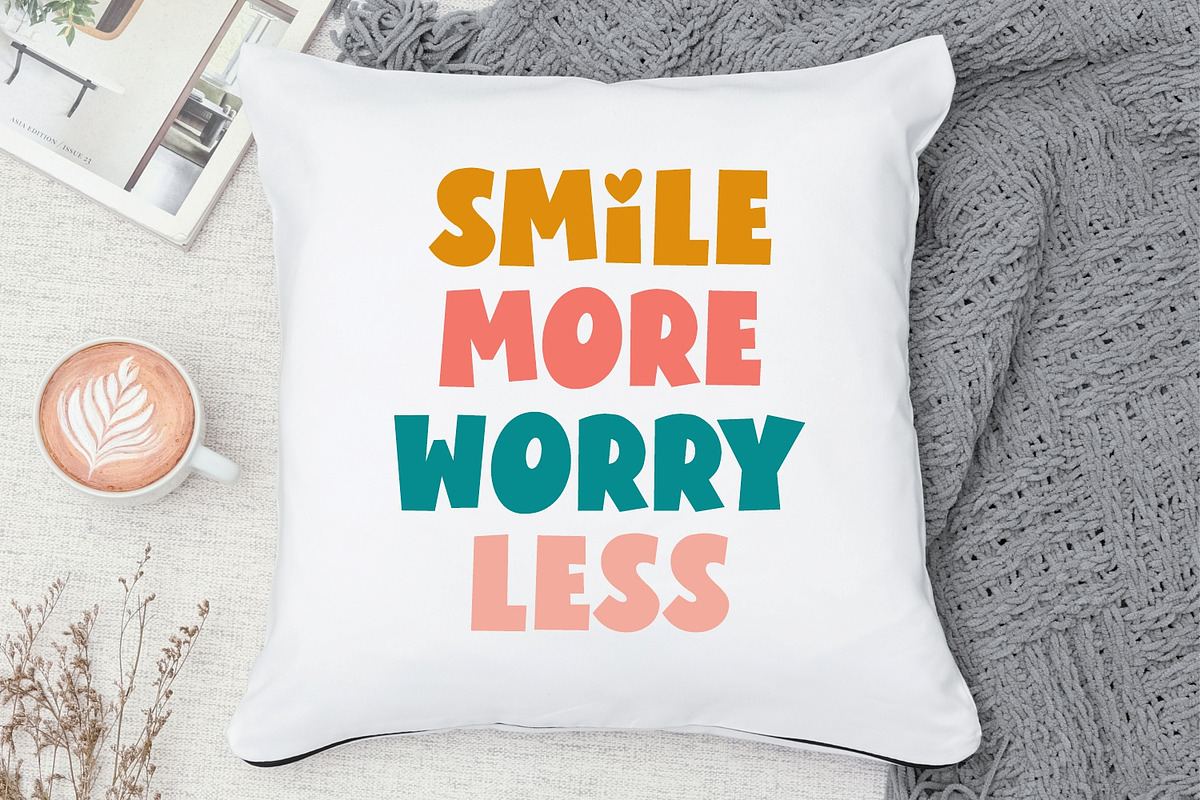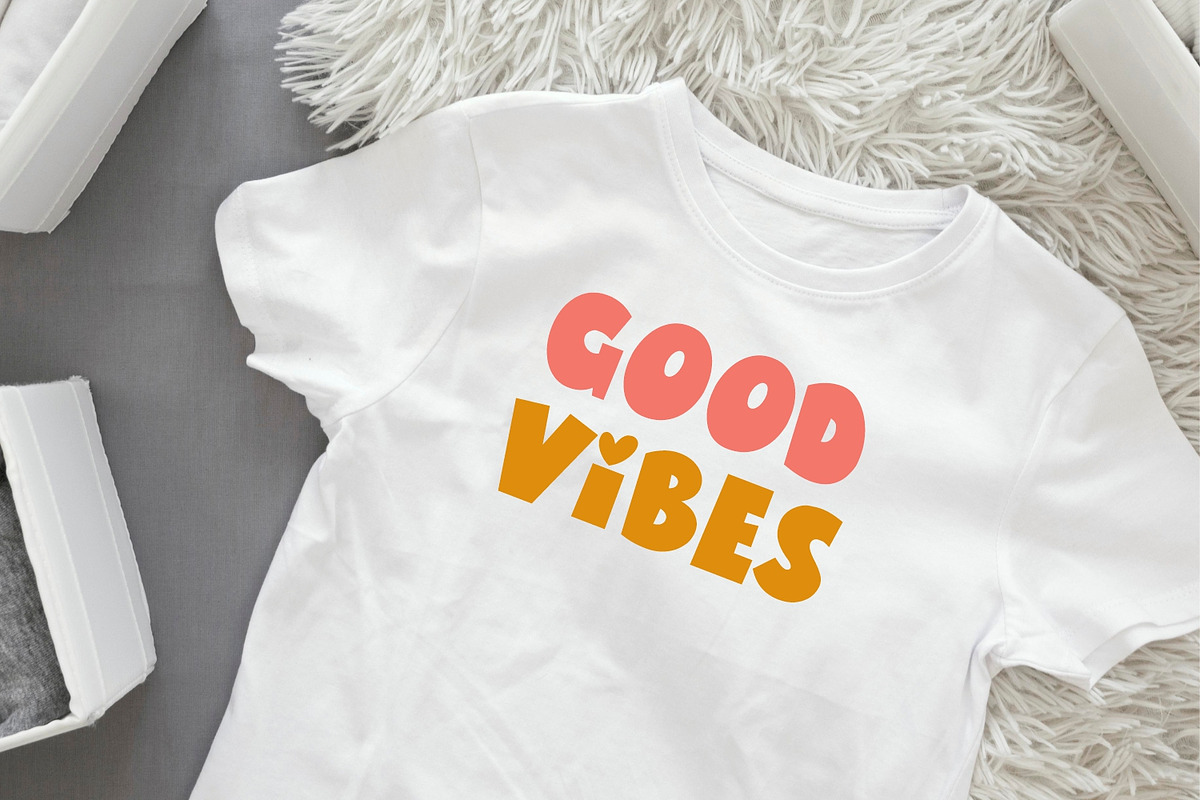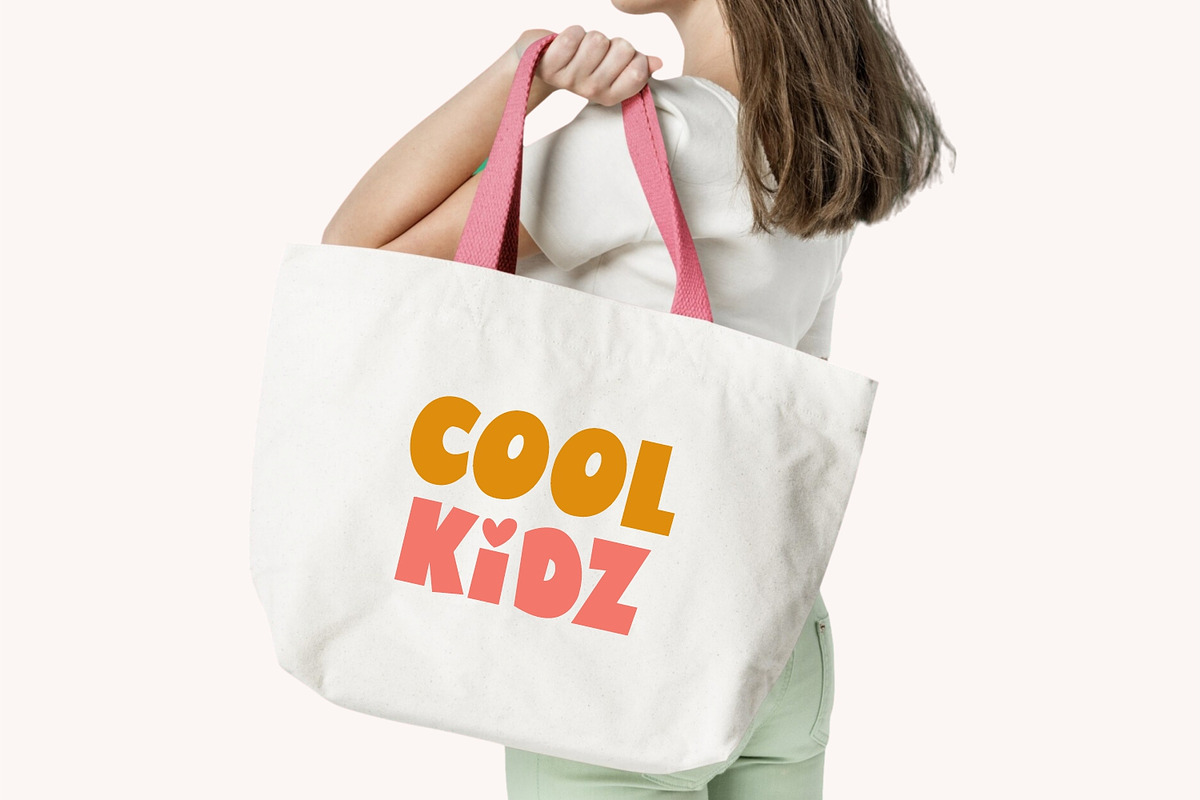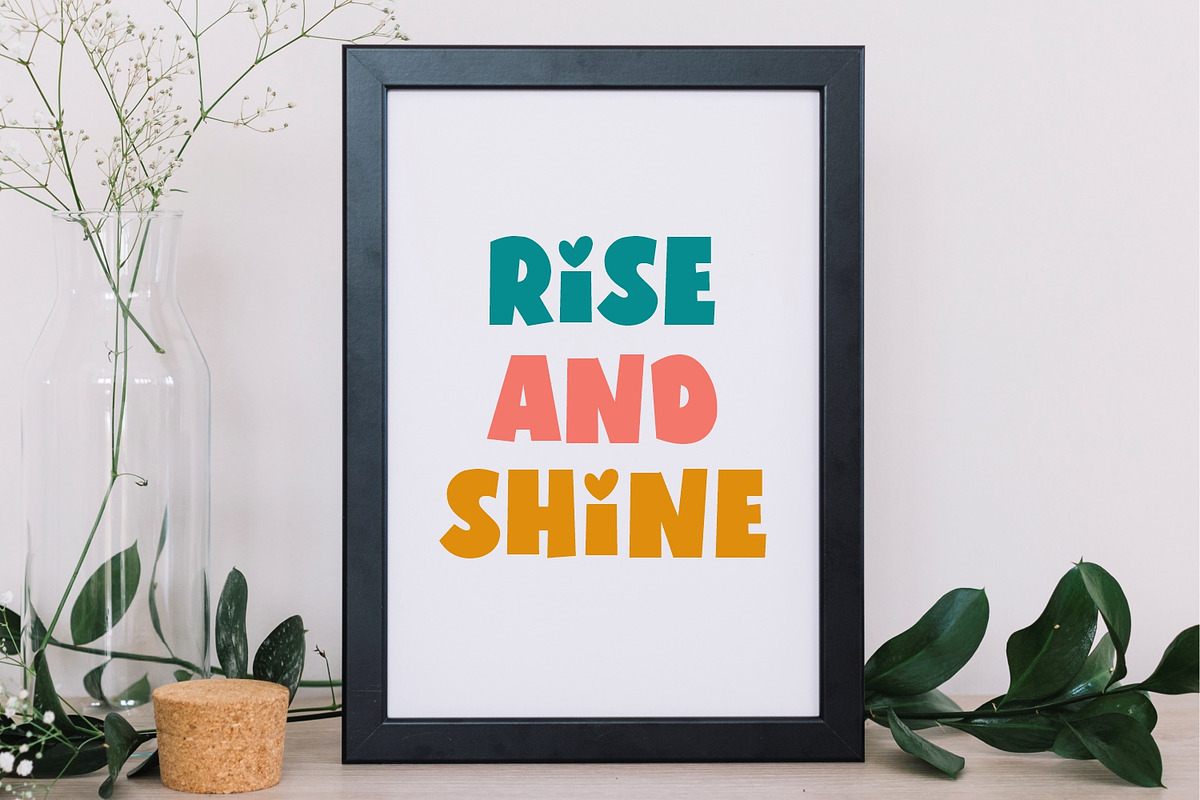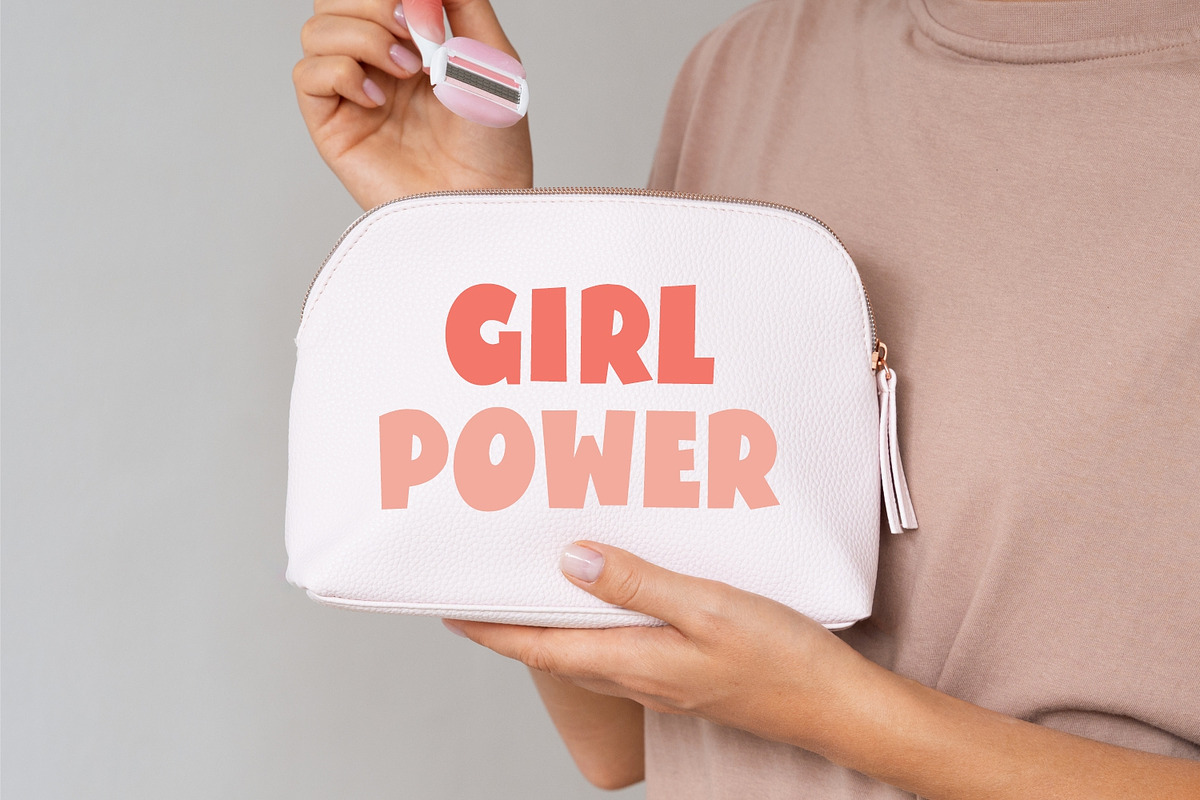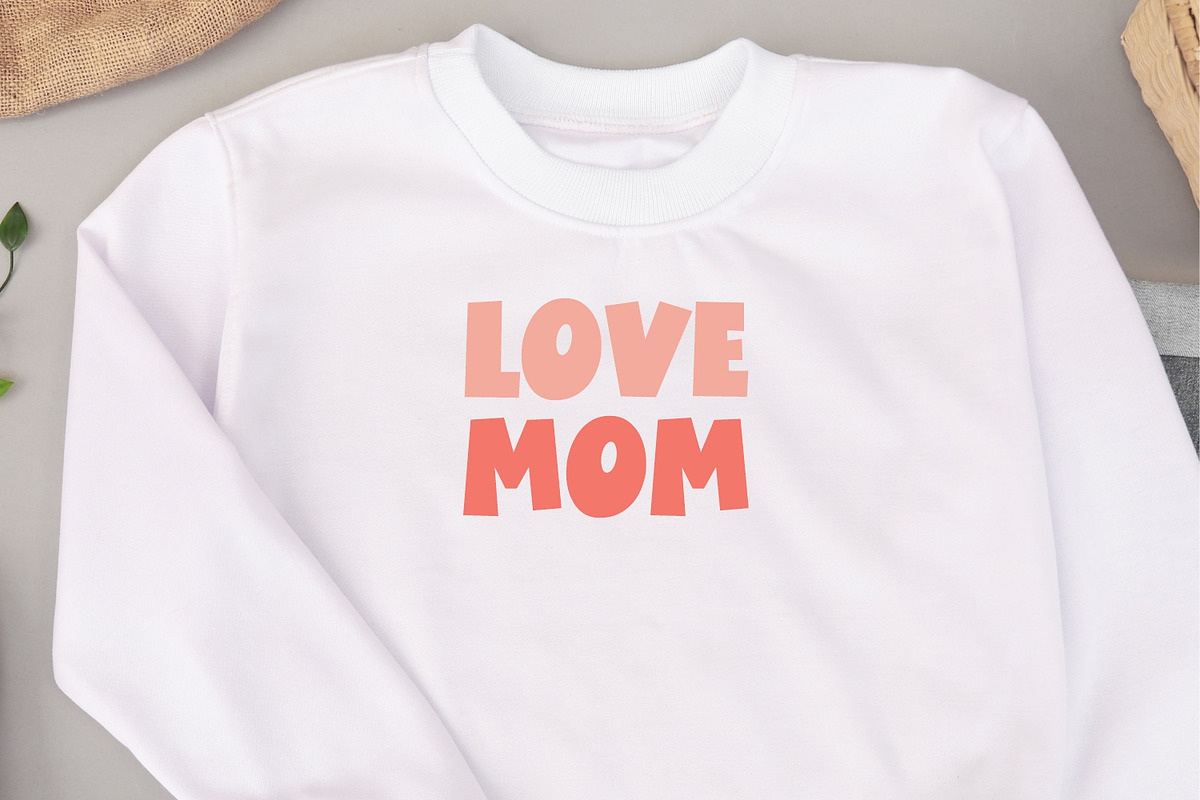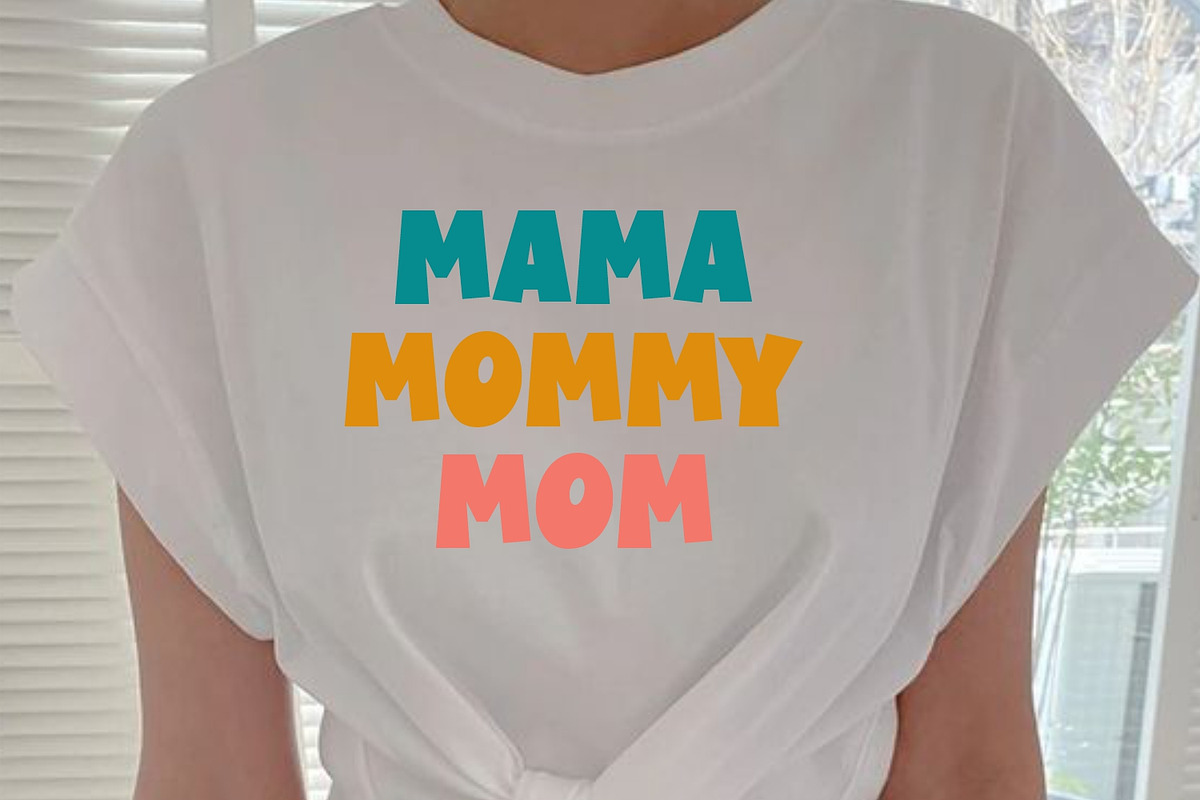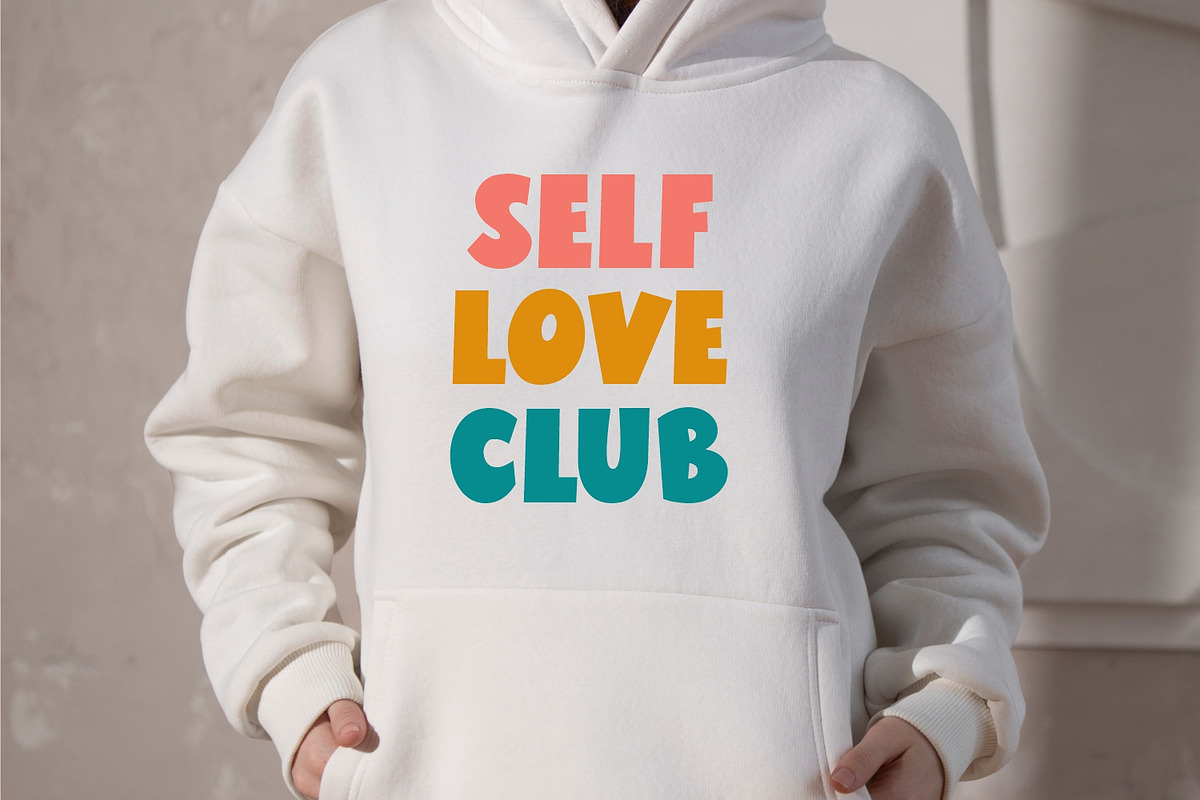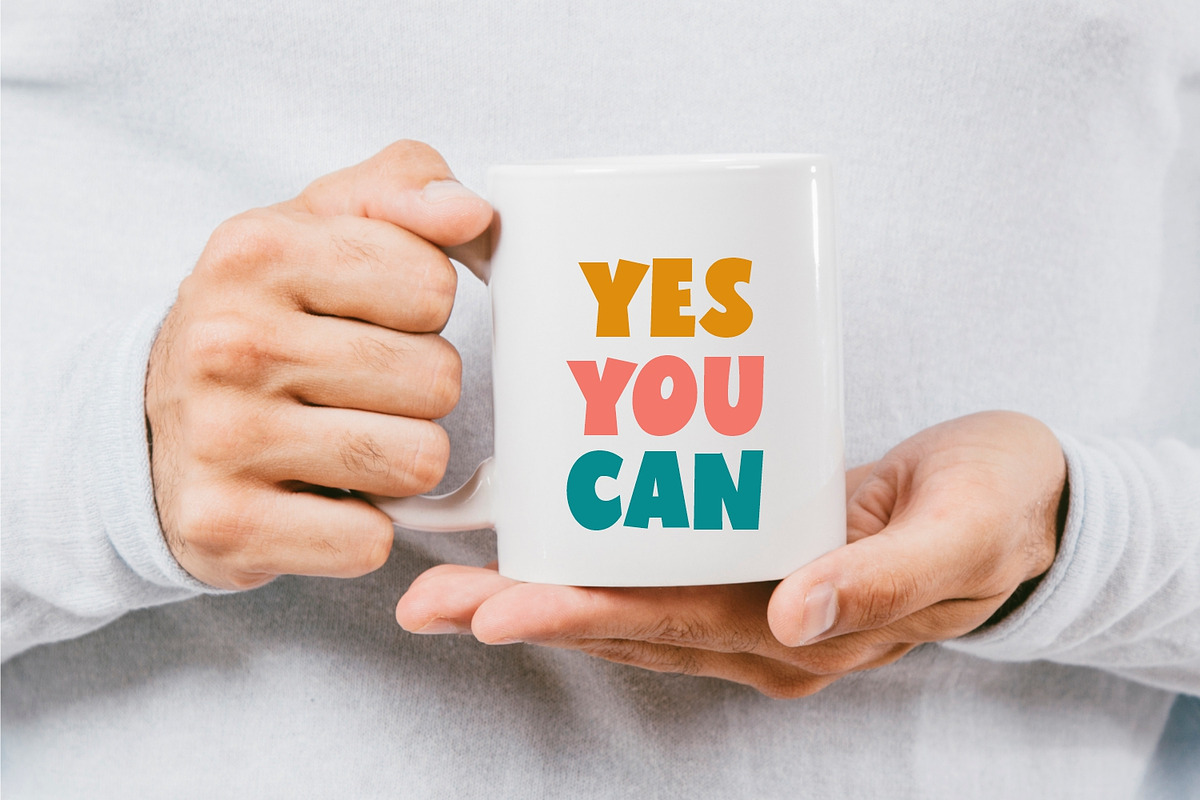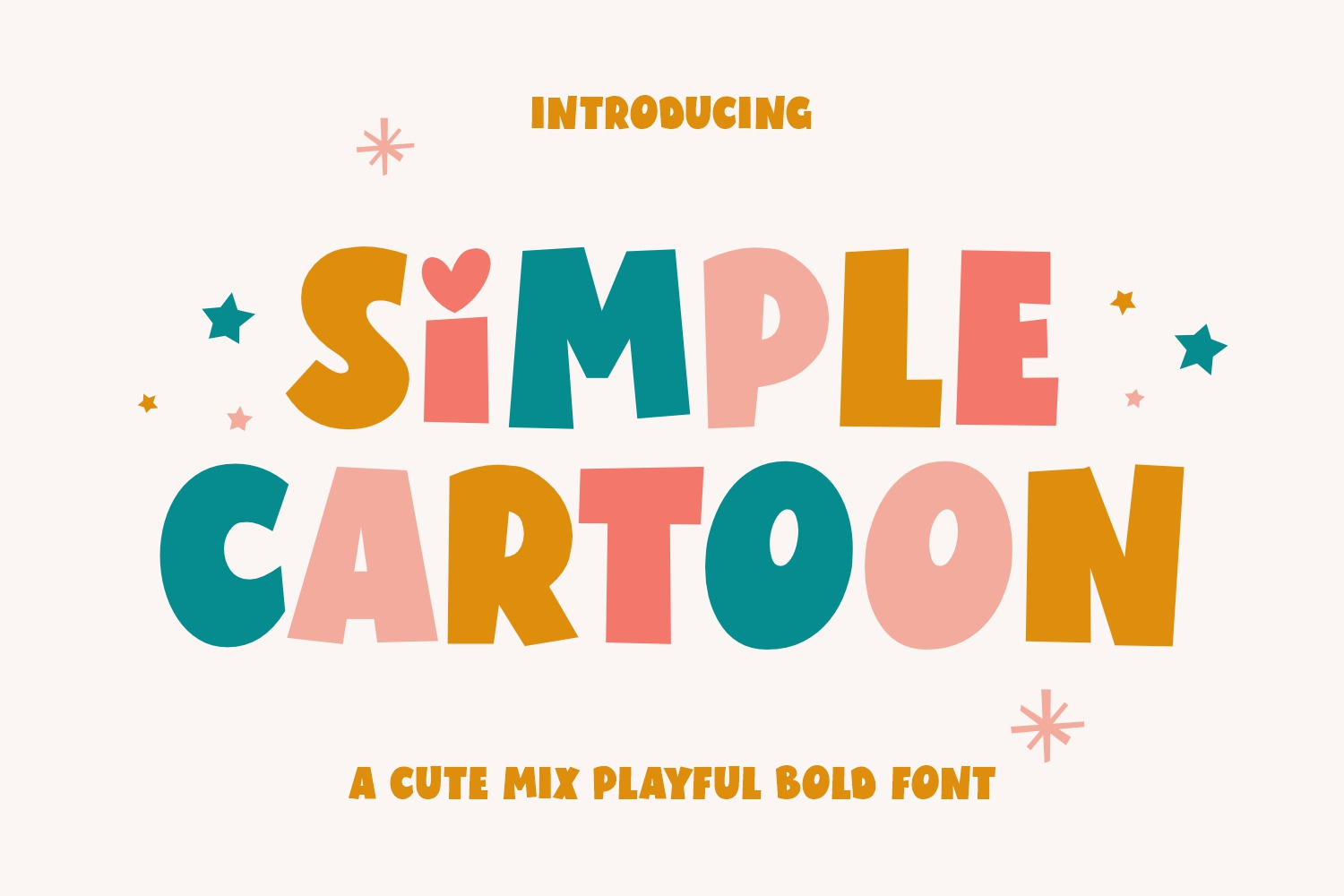
Simple Cartoon - Cartoon Font
Presenting Simple Cartoon, a charming bold typeface, steeped in cuteness and playfulness. This light-hearted font effortlessly injects joy and uplifts the tone of your design, making it an ideal choice for varied mediums. Let its radiant charm enhance the appeal of your greeting cards or impart a fun quotient to your t-shirt designs. Simple Cartoon adds a touch of cheer to school logos and online businesses, and resonates vibrantly on social media. Celebrate holidays with a dash more zest using this font. Immerse your designs in the freshness and vibrancy Simple Cartoon offers, and let your creations narrate a tale that’s as delightful as a colorful cartoon strip.